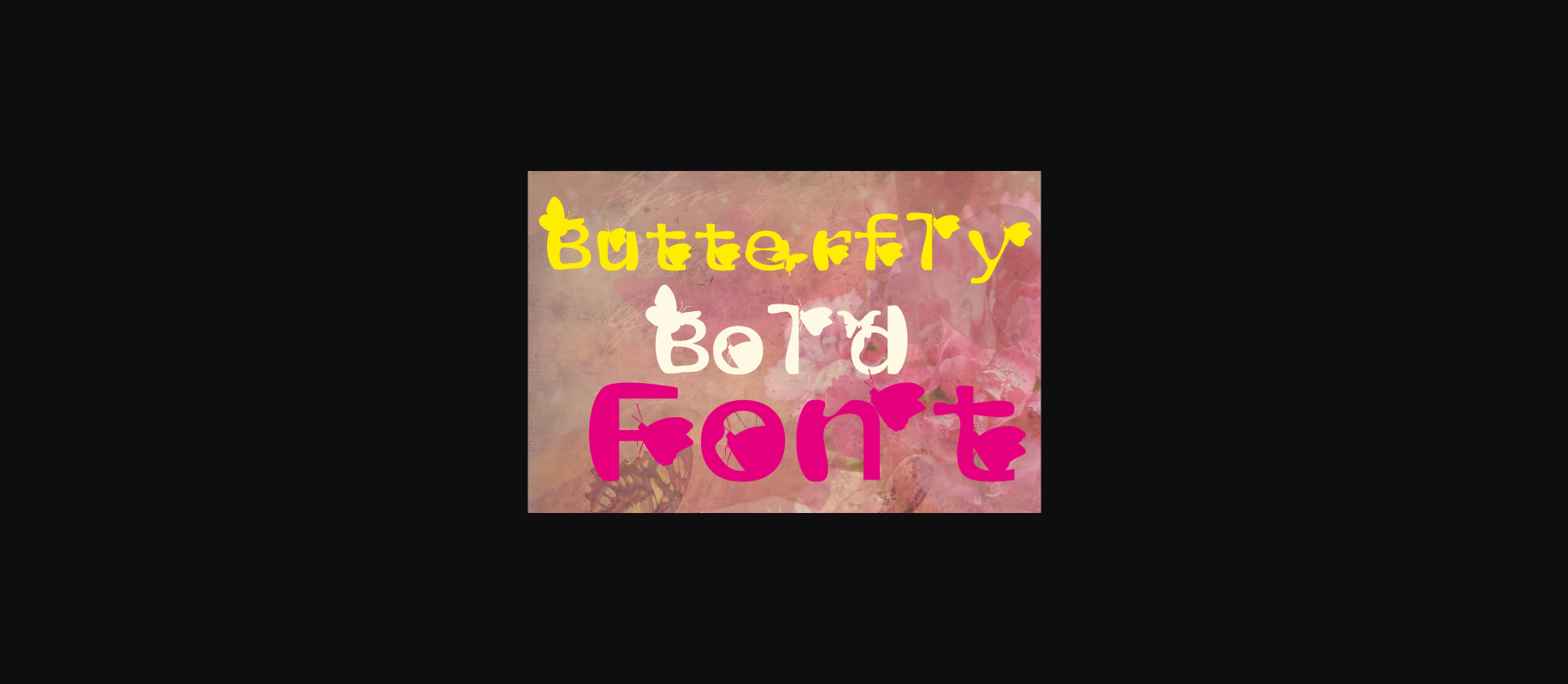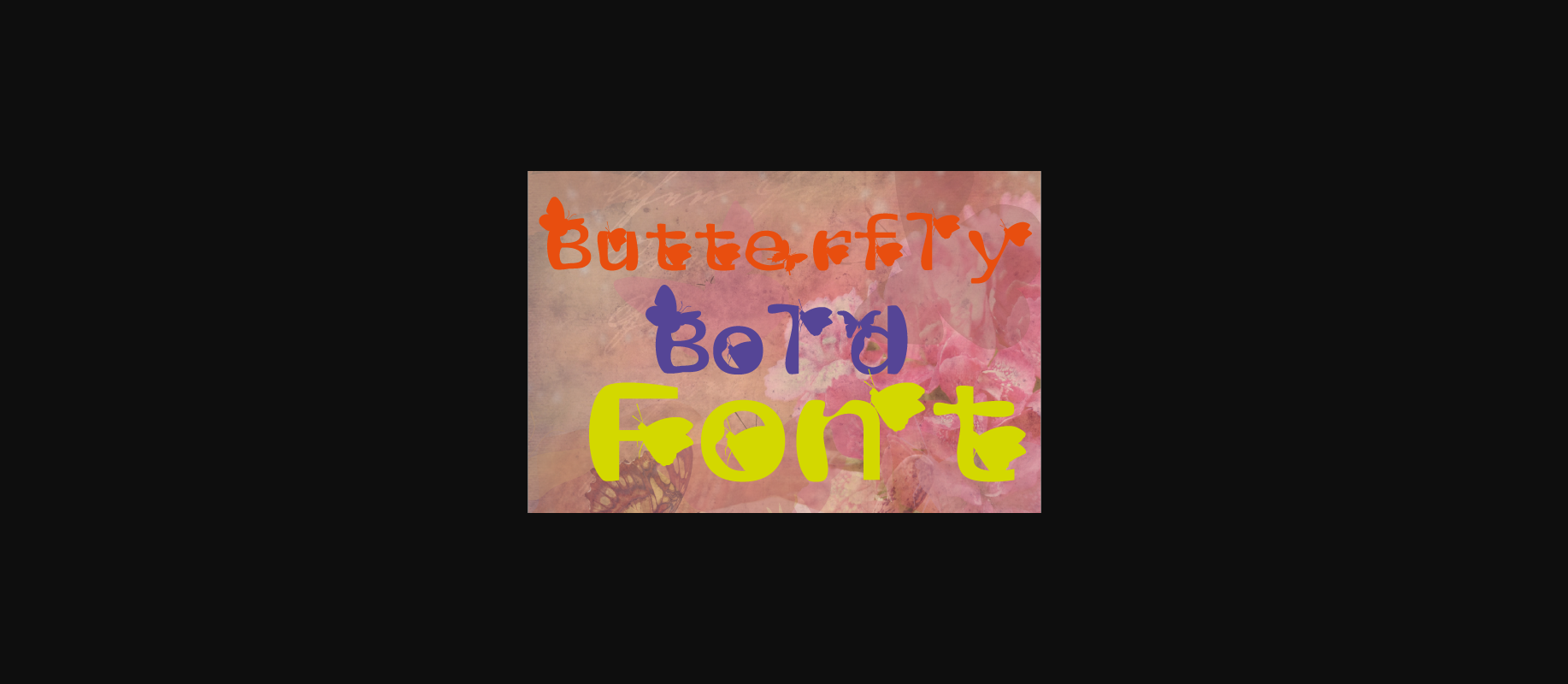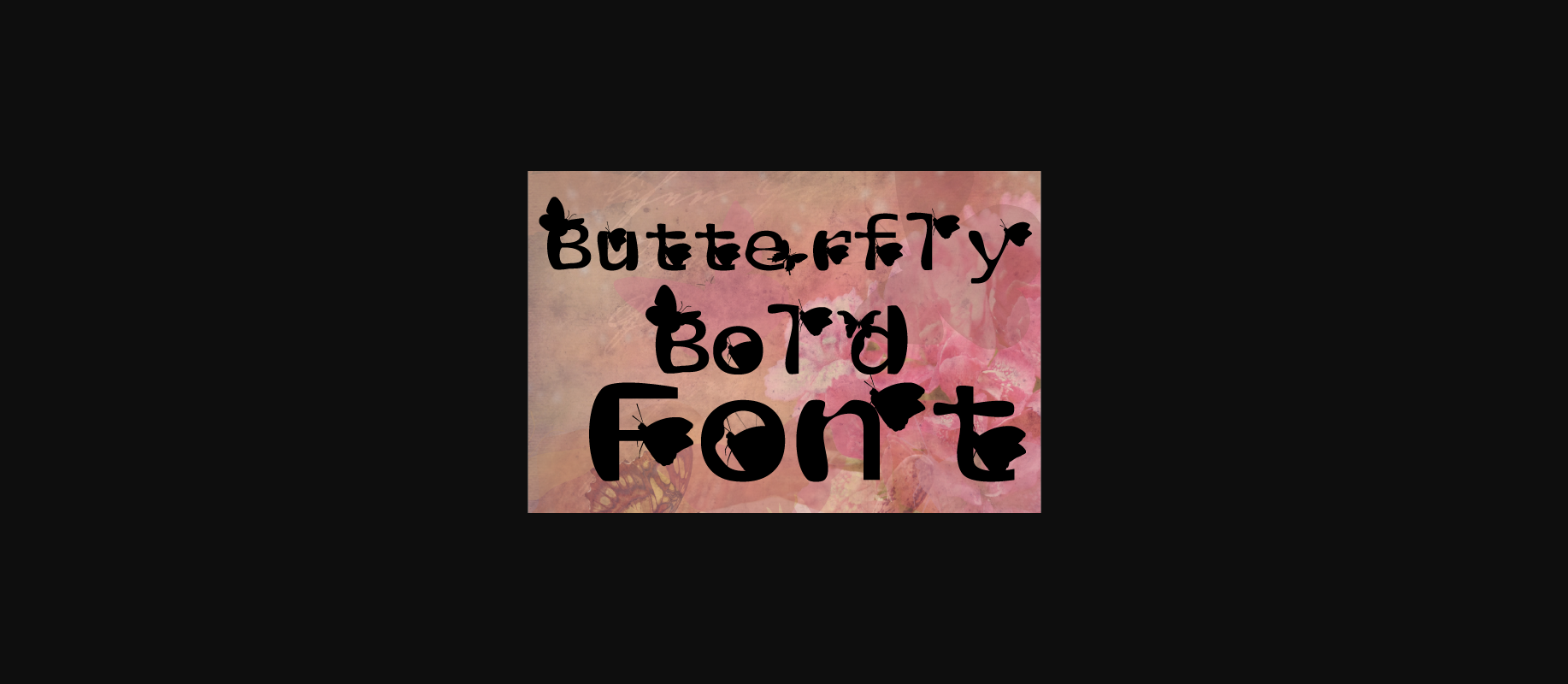
Butterfly Bold Font
About Butterfly Bold Font
Butterfly Bold is perfect for creating fun and playful designs. With friendly letters, it’s sure to be a hit!